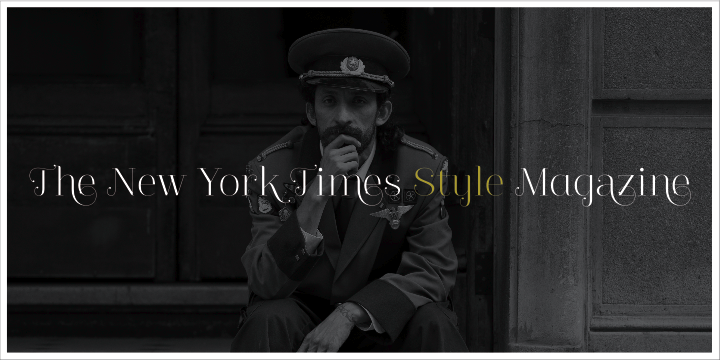
Guadalupe
by Latinotype
The Guadalupe Font Family was designed by Daniel Hernández and published by Latinotype. Guadalupe contains 8 styles and family package options. More about this family
Guadalupe –from the family of classic Didots– is a high performance font with a great set of alternates & swashes and carefully refined details. Especially suited for fashion magazines, logotypes and luxury contexts with a range of two different terminal versions; “Regular” –a classic roman typeface– and “Gota”, much more expressive for word setting.